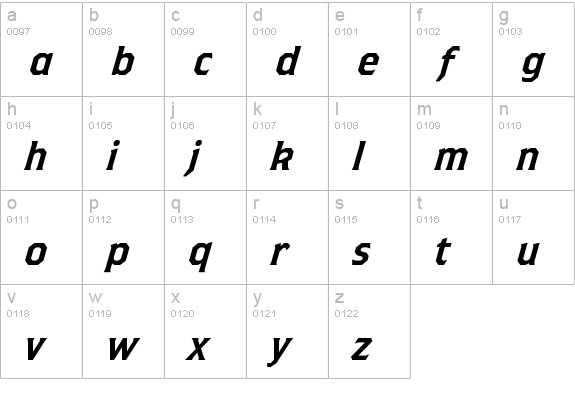
BrothersSuperSlant font is a modern and stylish typeface that exudes confidence and sophistication. With its sleek slanted design and bold appearance, this font is perfect for making a statement in any project. The sharp angles and clean lines of BrothersSuperSlant add a touch of edginess and professionalism to your designs. But the best part? BrothersSuperSlant font is completely free to download at FontsMarket.com! You can easily elevate your projects with this versatile font without breaking the bank. Whether you're creating logos, posters, branding materials, or website designs, BrothersSuperSlant is sure to make a bold impression. Download it now and see the difference it can make in your designs!